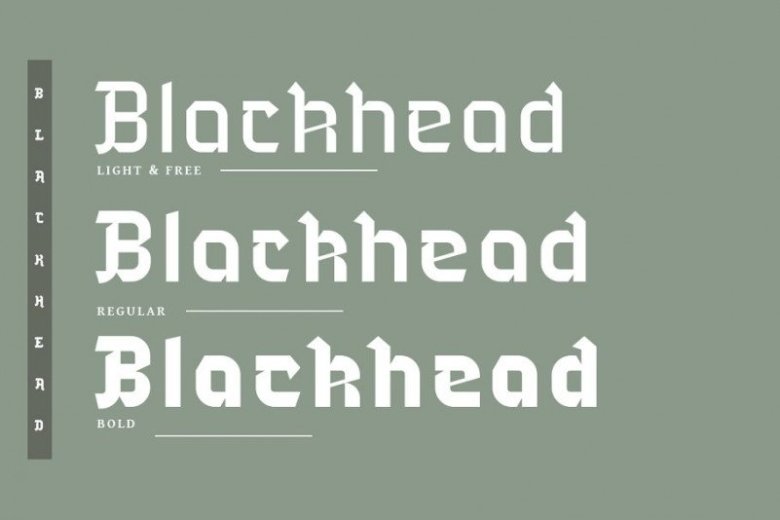
Blackhead Typeface
A new blackletter font by Headfonts. This is a Vintage black letter font, it’s perfect for you to show your design or product in professional way. Blackhead Typeface is a 3 font family. Inspired by gothic culture and modern fonts, is perfect to use in vintage-themed designs. Blackhead is suitable for any project that requires an old gothic feel as the core design elements; such as logos, wedding invitations, greeting cards, posters, etc.